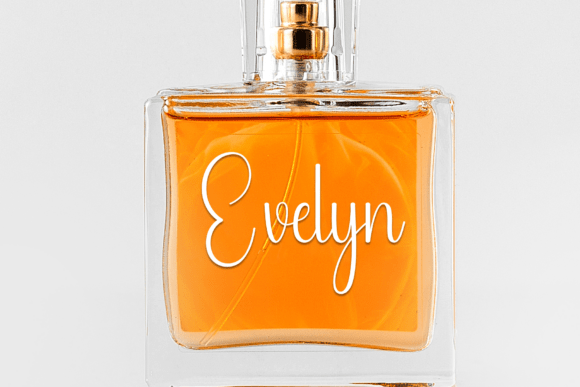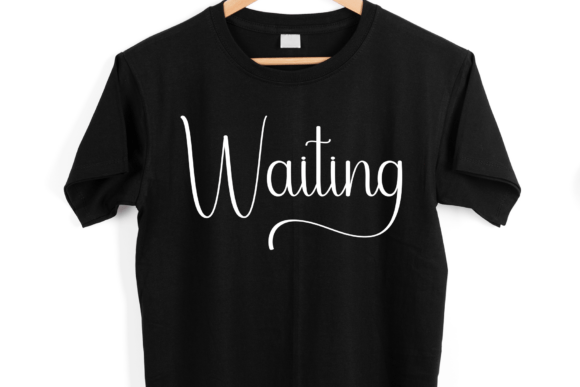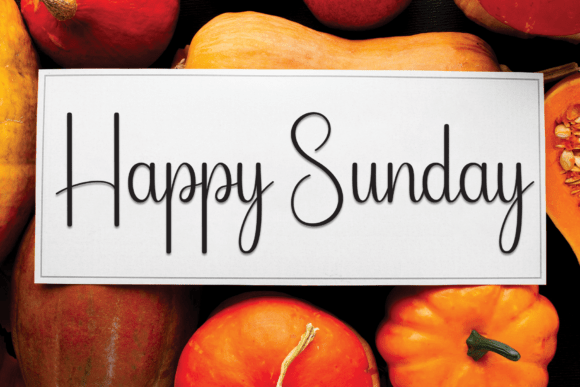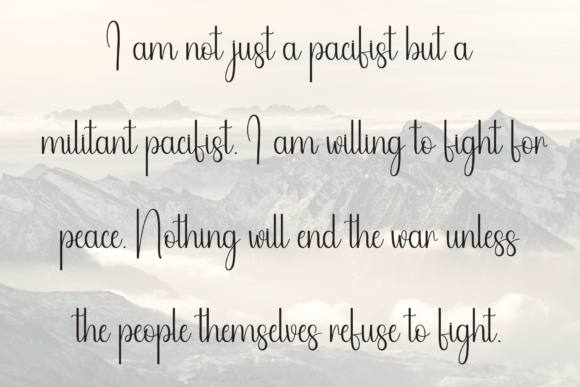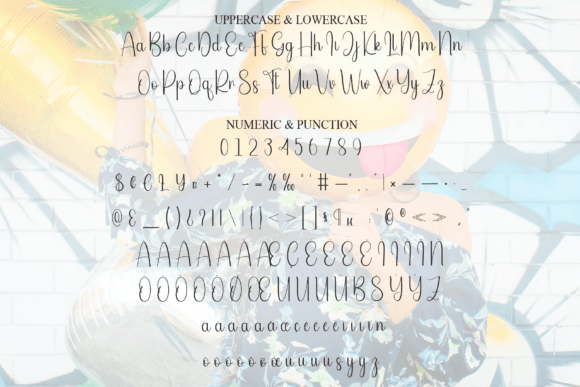
Introducing Funny Font: The Perfect Blend of Elegance and Playfulness
In the world of typography, fonts play a crucial role in conveying the tone and personality of a design. For designers and crafters looking to add a touch of warmth, sophistication, and creativity to their projects, Funny Font is an excellent choice. This stylish handwritten script font seamlessly blends modern elegance with a playful touch, making it ideal for a wide range of applications.
What Makes Funny Font Special?
Funny Font is a beautifully crafted handwritten script font that boasts fluid strokes and charming curves. Its unique blend of modern elegance and playfulness makes it perfect for designers who want to add a personal touch to their work. Whether you’re creating logos, packaging, invitations, or any other design project, Funny Font is sure to bring a smile to your audience’s face.
Key Features of Funny Font
- Fluid Strokes: Funny Font features smooth, flowing strokes that give it a natural, handwritten feel.
- Charming Curves: The font’s curves are carefully crafted to add a touch of playfulness and whimsy to your designs.
- Modern Elegance: Despite its playful nature, Funny Font exudes modern elegance, making it suitable for a wide range of design projects.
- Personal Feel: The font’s unique character brings a personal feel to any design, setting it apart from more traditional typefaces.
Use Cases for Funny Font
Funny Font is incredibly versatile and can be used in a variety of design projects, including:
- Logos: Add a touch of personality to your brand’s logo with Funny Font.
- Packaging: Make your product stand out on store shelves with Funny Font’s unique charm.
- Invitations: Create beautiful, eye-catching invitations for weddings, parties, and other special events.
- Social Media Graphics: Add a playful touch to your social media graphics, such as quote graphics, promotions, and more.
Benefits of Using Funny Font
Using Funny Font in your design projects offers several benefits, including:
- Unique Personality: Funny Font adds a unique personality to your designs, setting them apart from more traditional typefaces.
- Emotional Connection: The font’s playful nature helps create an emotional connection with your audience, making your designs more relatable and engaging.
- Versatility: Funny Font is incredibly versatile and can be used in a wide range of design projects.
- Ease of Use: The font is easy to read and works well in both digital and print formats.